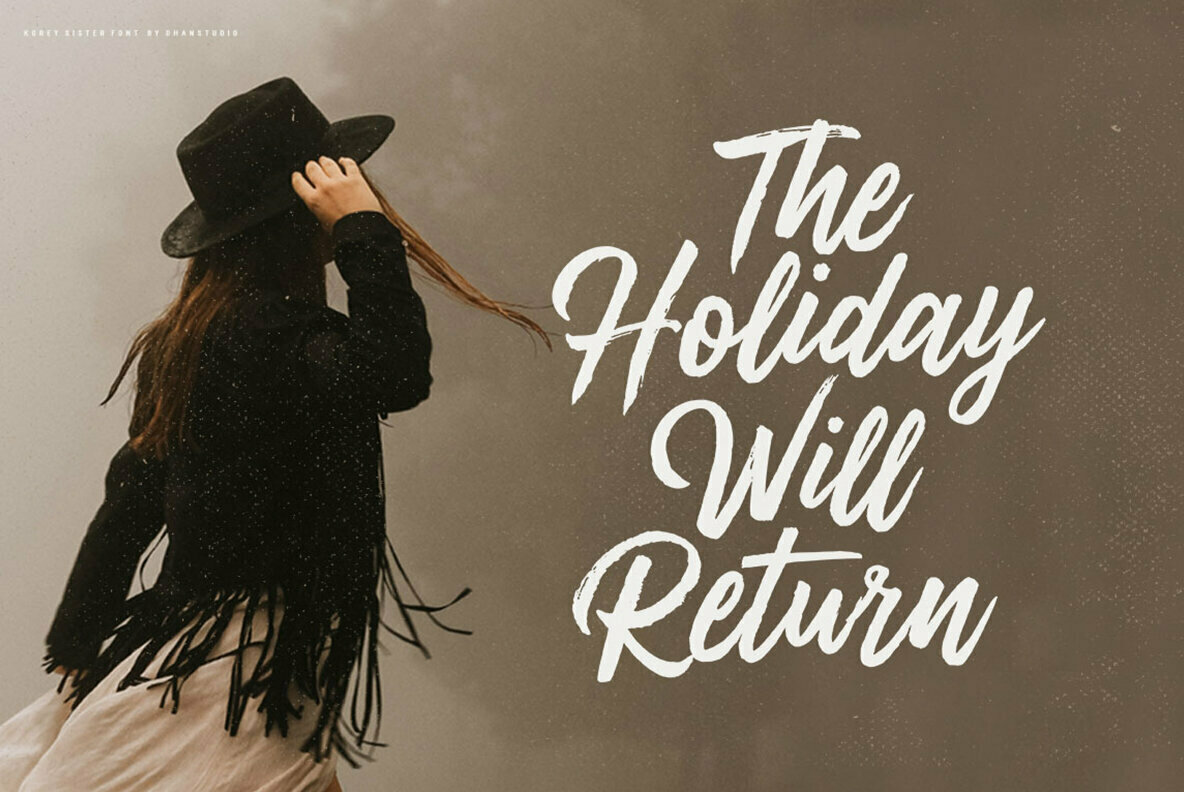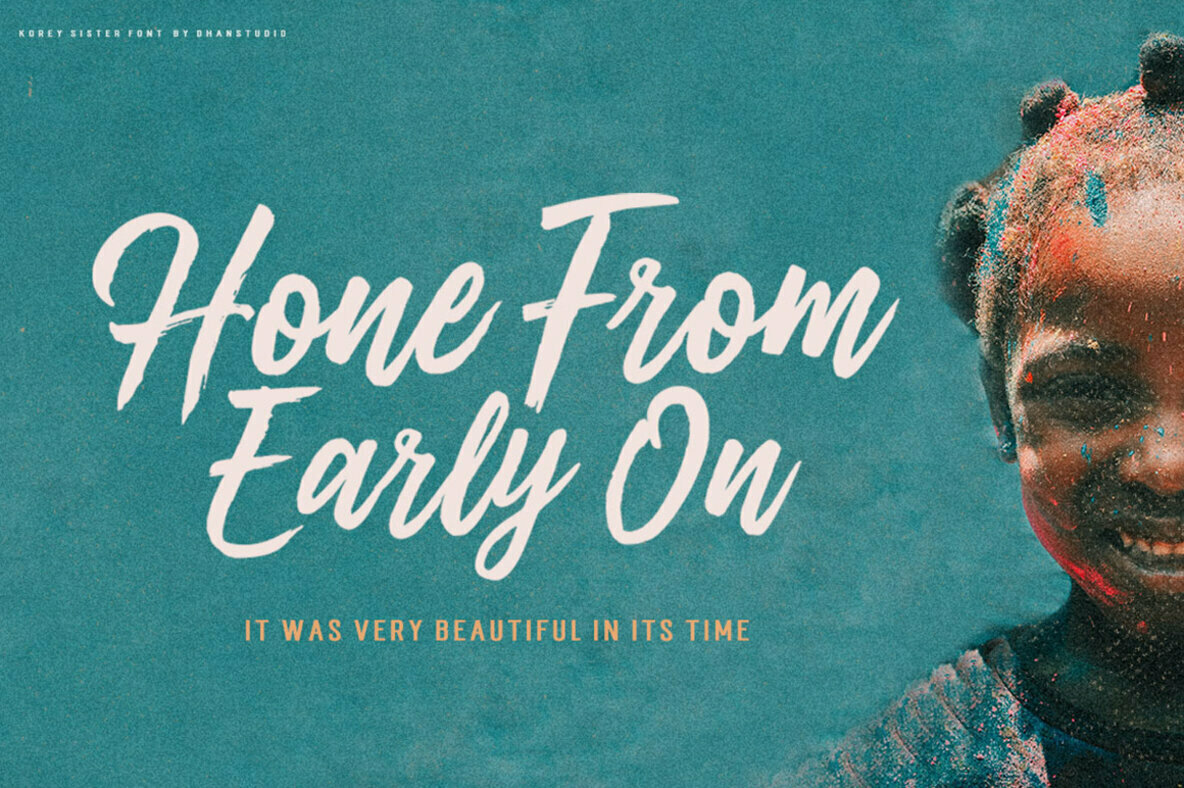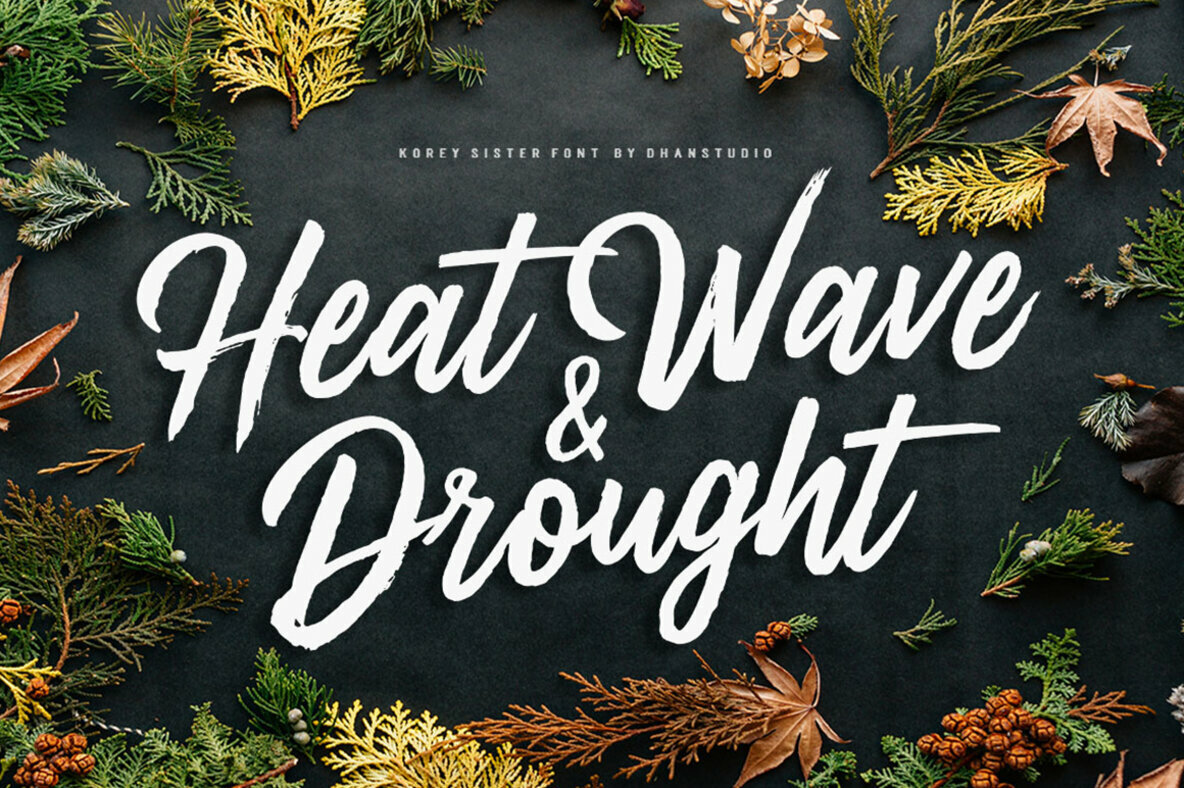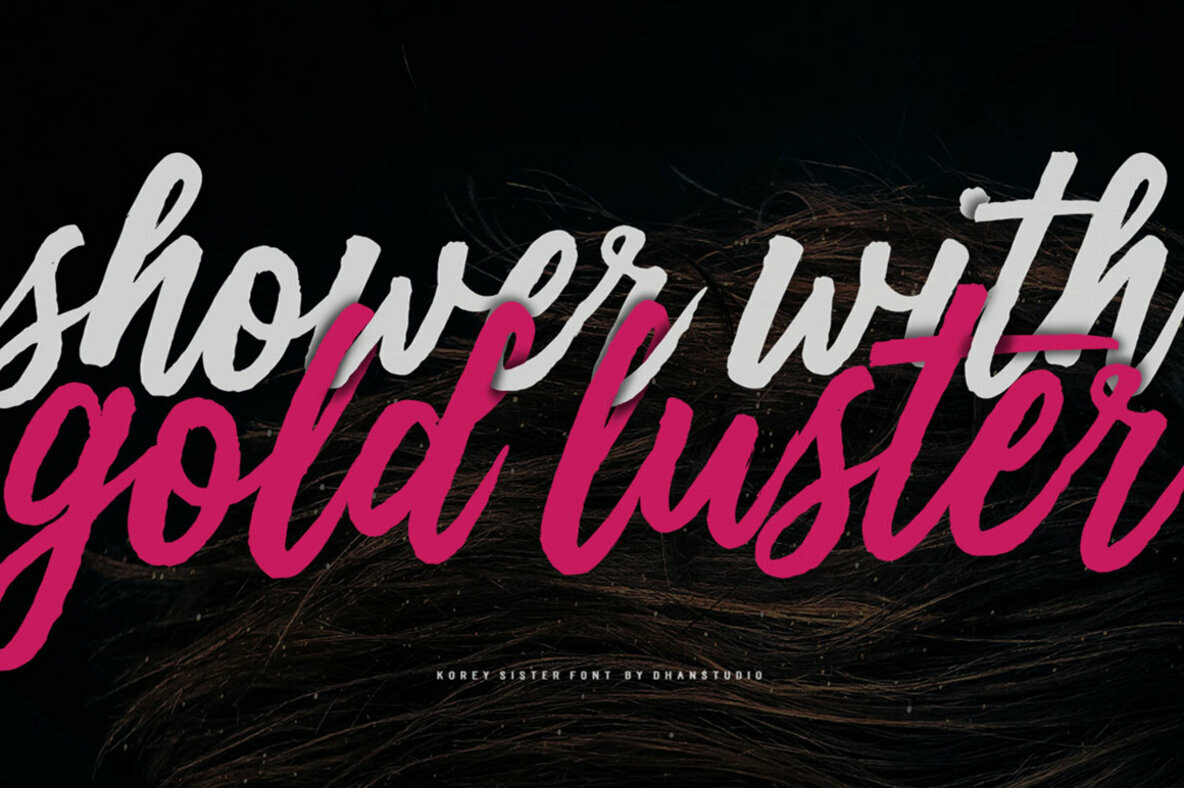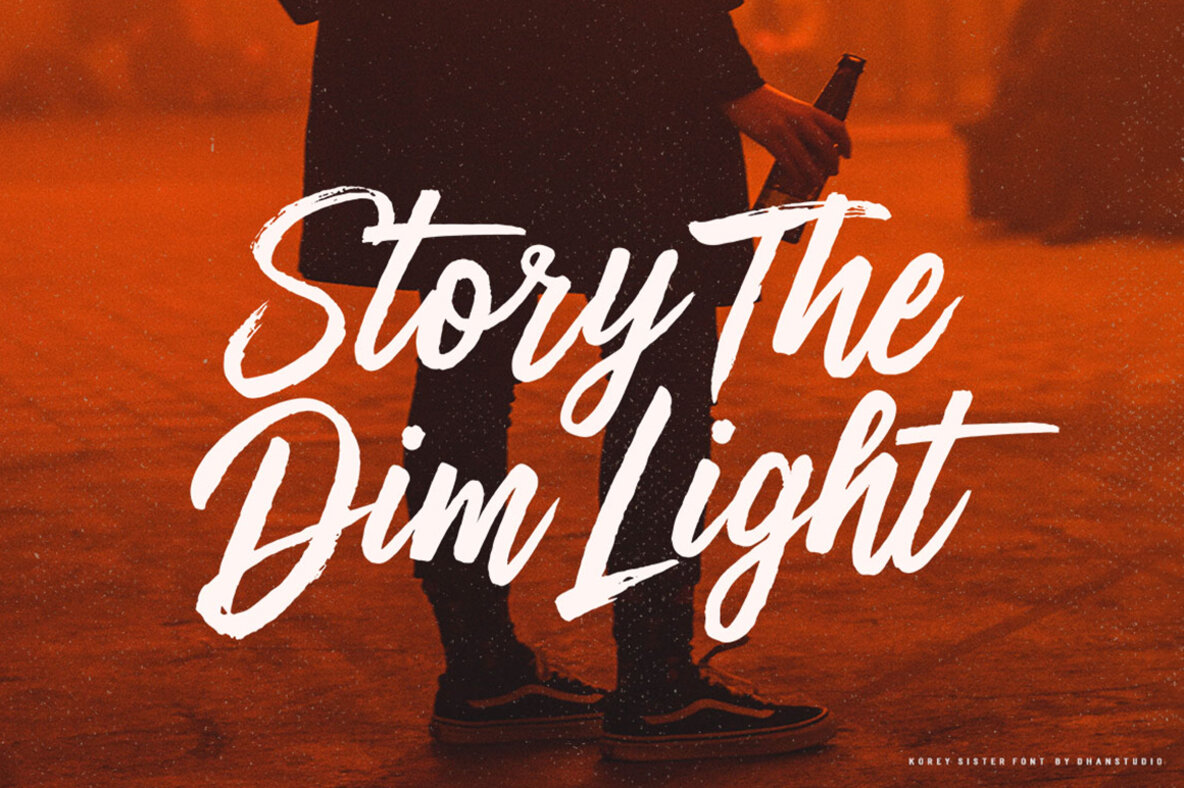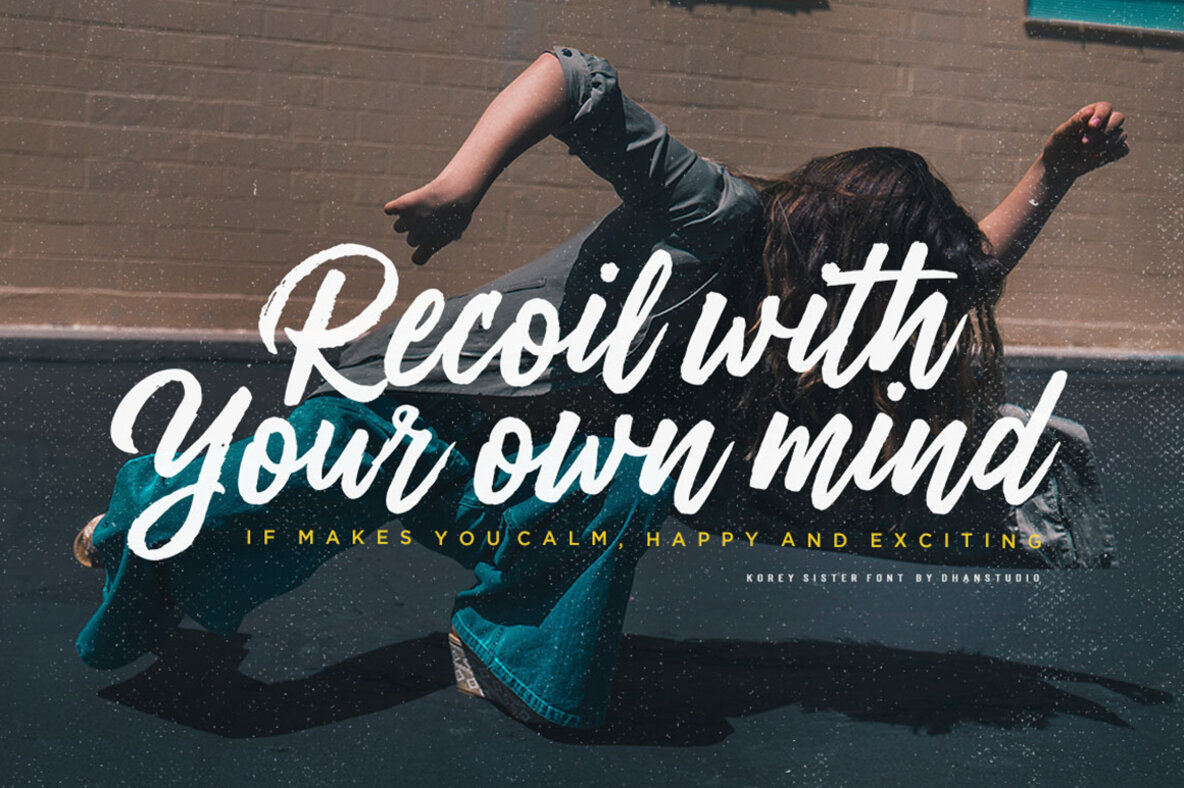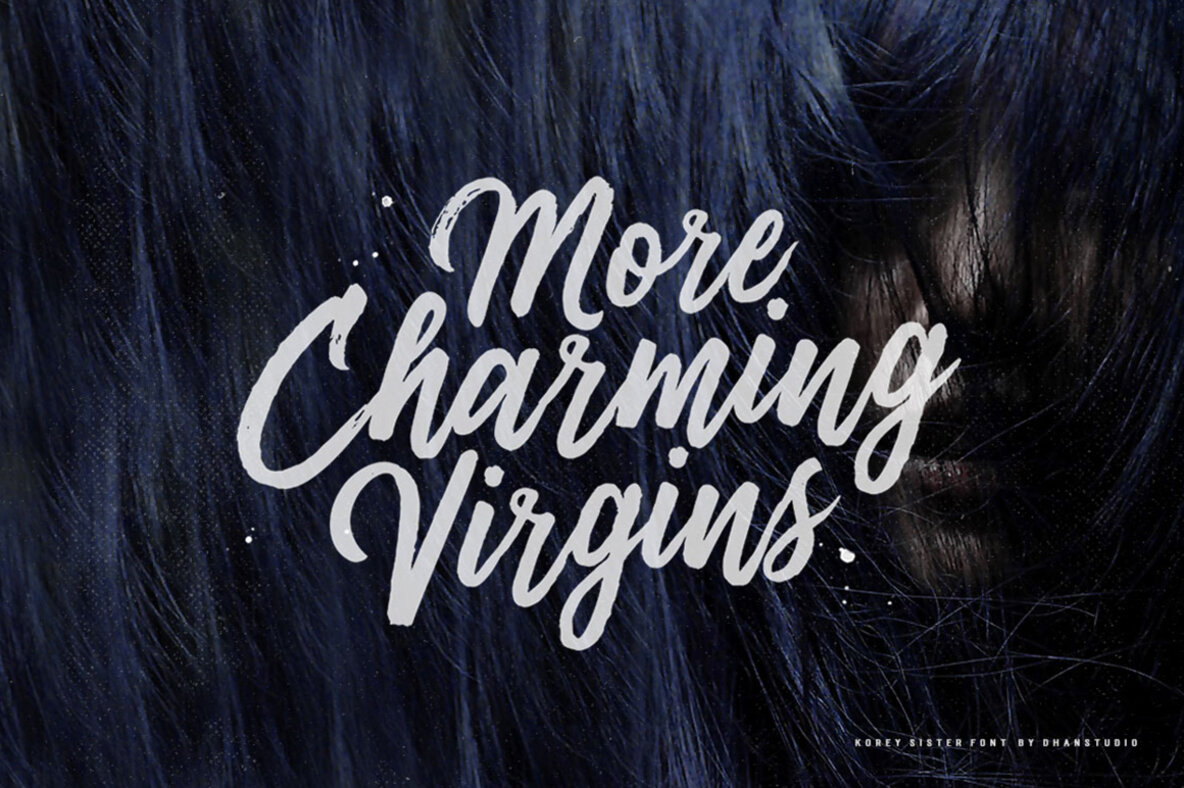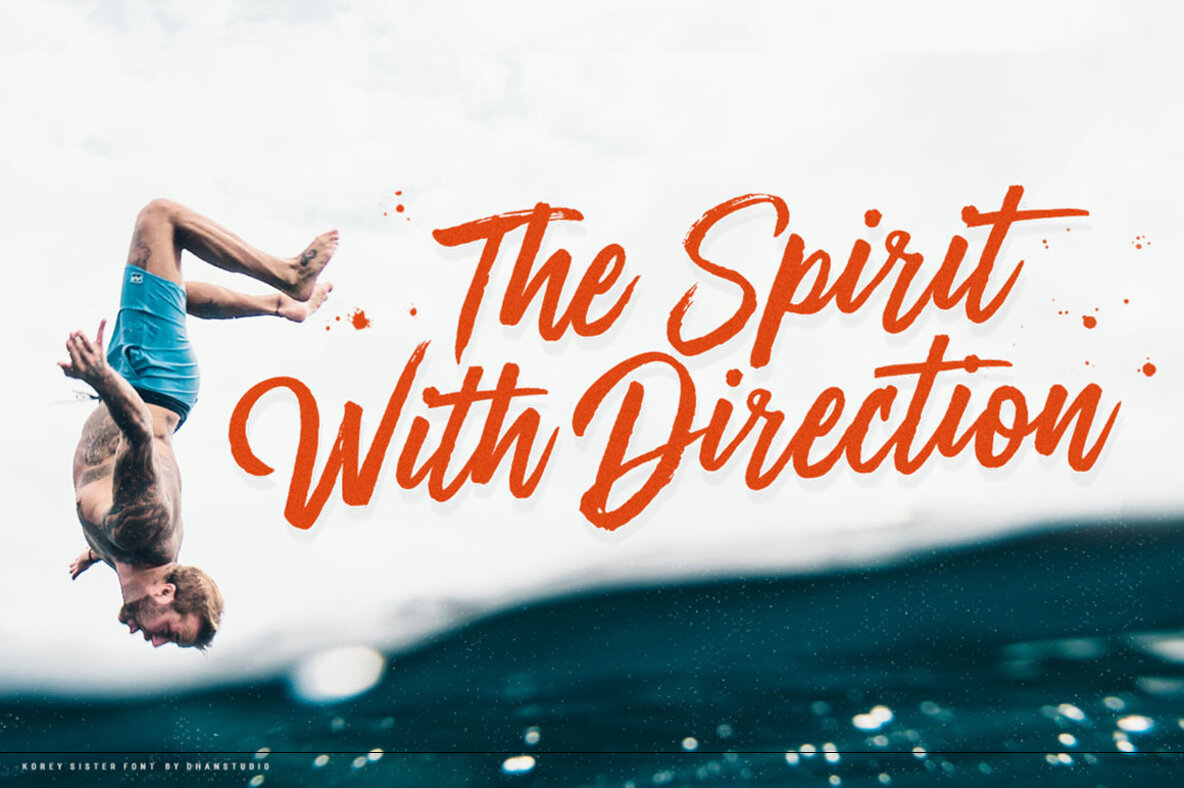
Korey Sister Font
Korey Sister
The Korey Sister font by Dhan Studio introduces a delightful aesthetic to your designs. Perfectly suited for a variety of creative endeavors, this font offers a unique blend of elegance and casual flair. With its expressive brush strokes, Korey Sister stands out, adding a personal touch to any visual composition.Korey Sister: A Fresh Brush Font for Creative Projects